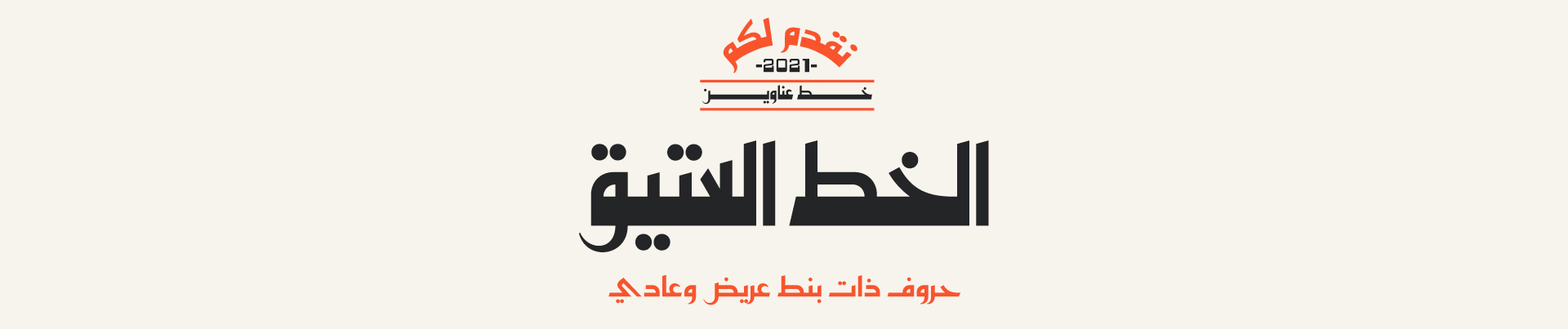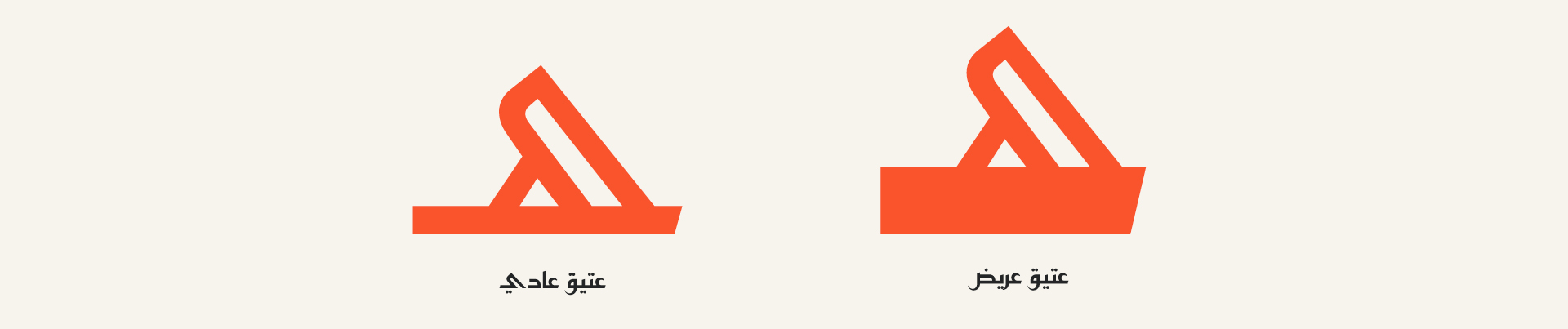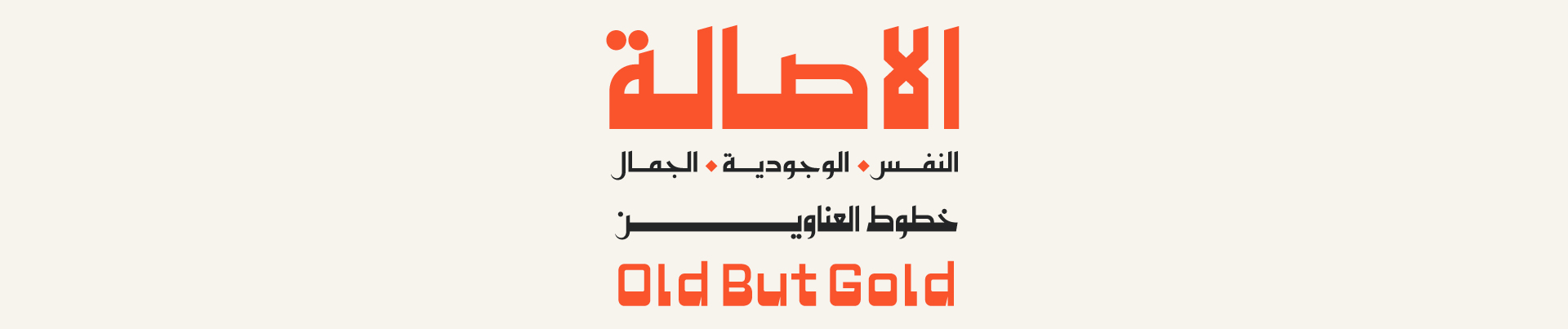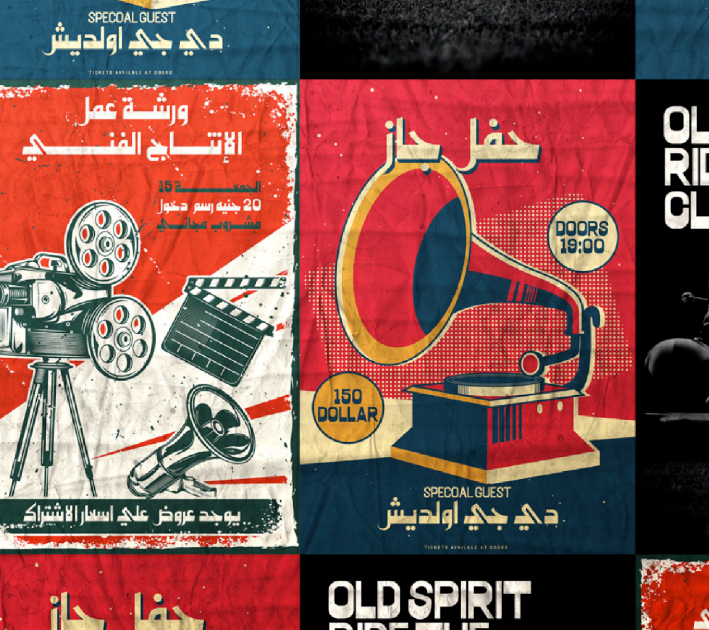
About Ateq Font
Introduction:
Ateq means ancient in the Arabic language. Letters were designed from the abstraction and modernization of the Fatimid Kufic letters and the old Qur’an Kufic that is taken from the book of Yusuf Zinun.
Weights and Supported Languages:
Ateq Font consists of 2 weights
Regular fit to use with texts – Wide fit to use with headlines
It supports Arabic and Basic Latin letters.
Usage:
Ateq is used in headlines, short texts, social media posts, and visual identities.